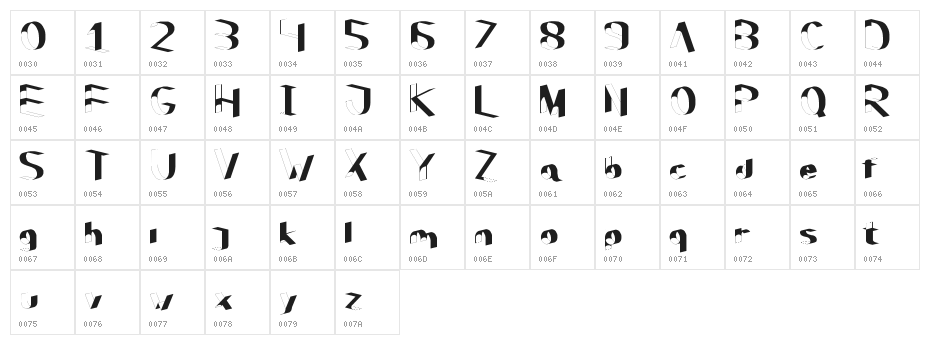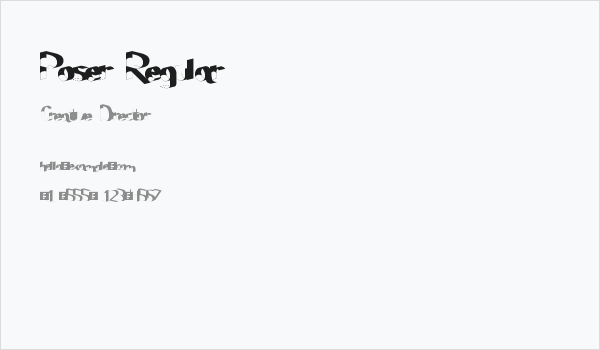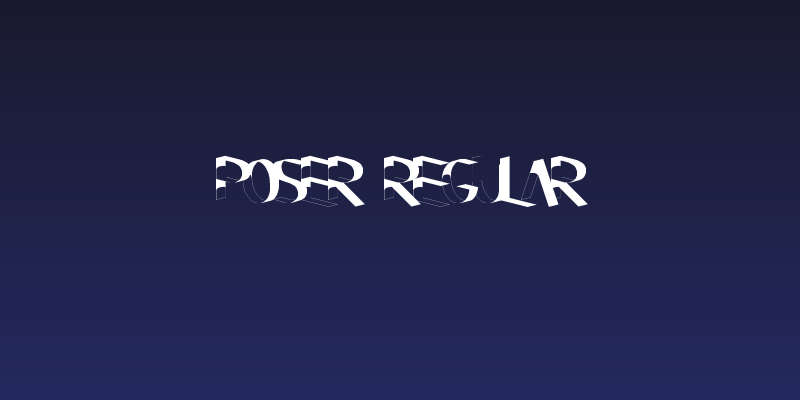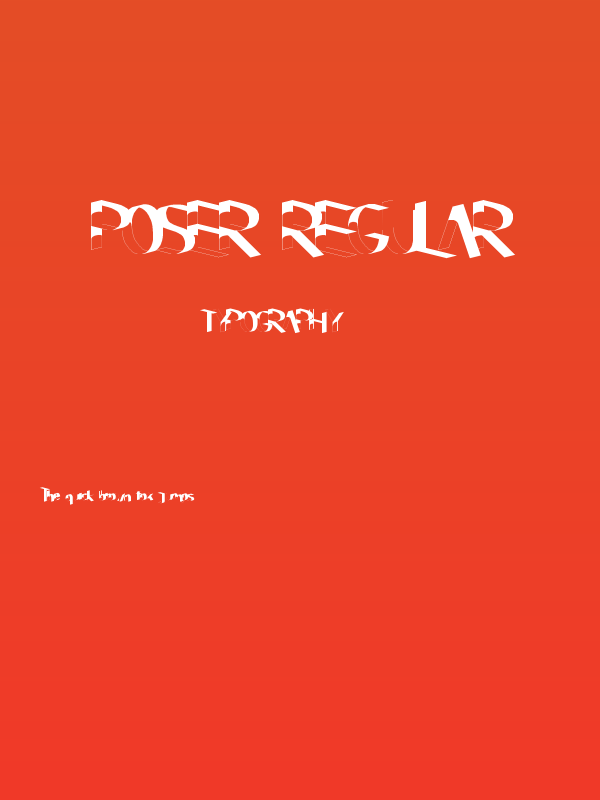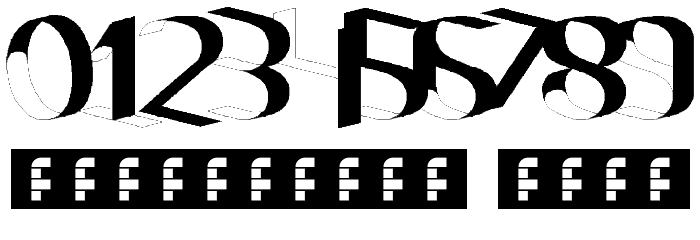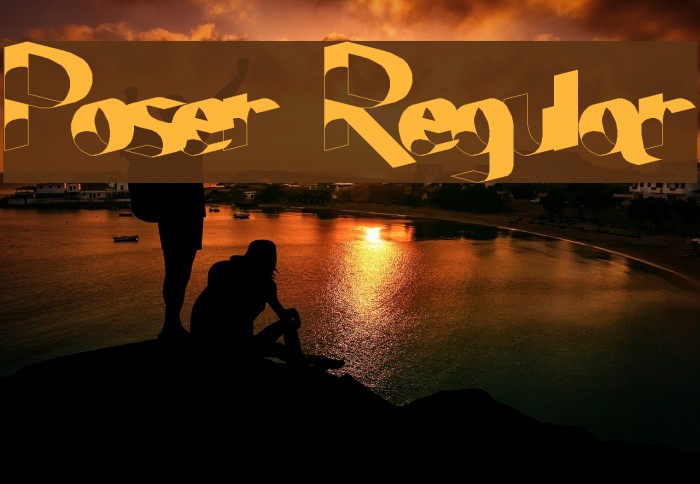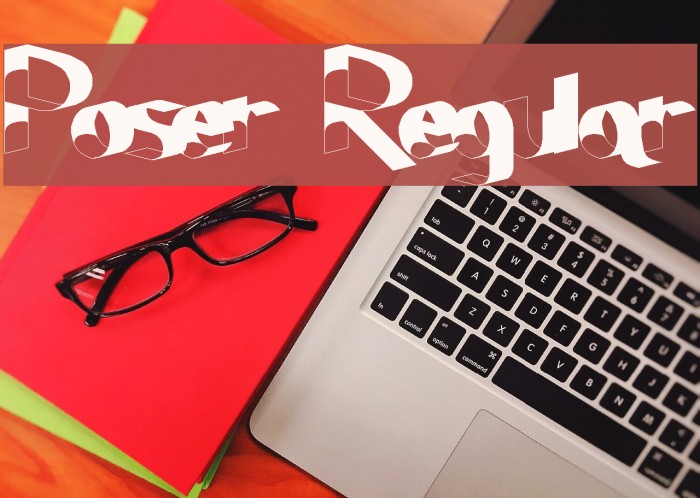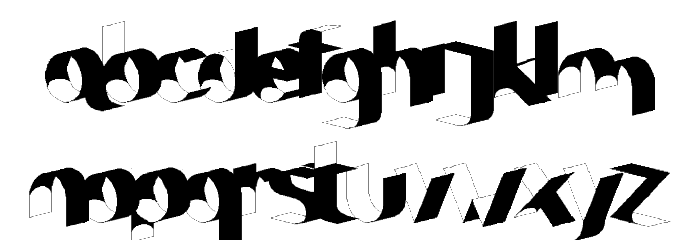
Poser Regular Font
Poser Regular Description
This font features a bold and dynamic design with a three-dimensional effect, giving it a unique and eye-catching appearance. The characters are crafted with a strong, angular style, creating a sense of depth and movement. The uppercase and lowercase letters maintain a consistent design, with sharp edges and a slightly condensed form. Numbers and special characters follow the same aesthetic, ensuring uniformity across all glyphs. The font's boldness and distinct style make it ideal for projects that require a striking visual impact.
| Proposed Projects | Ideal for posters, logos, and headlines where a strong visual impact is desired. |